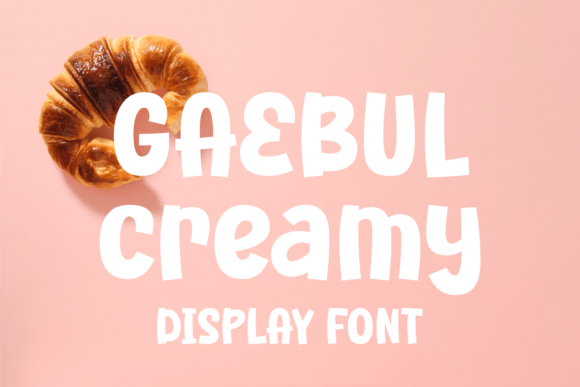
Introducing Gaebul Creamy Font, the ultimate choice for anyone looking to add a touch of boldness, modernity, uniqueness, and fun to their design! Created by the talented KristoperRansz, this font is specifically crafted for children, making it perfect for playful kids' font with a delightful cartoon style.
Are you in search of the best fonts for kids' shirts? Look no further! Gaebul Creamy is the answer to all your creative needs. With its cute and amazing display, this font will undoubtedly make your children's themed designs stand out from the crowd.
Whether you're designing for kindergarten projects, birthday invitations, or comic books, Gaebul Creamy is the ideal font to bring your vision to life. Its fun and chunky style will capture the attention of both kids and adults, guaranteeing a captivating and memorable experience.
But what sets Gaebul Creamy apart from the rest? Its versatility and adaptability make it the perfect choice for a wide range of design projects. From posters and banners to website headers and social media graphics, this font can do it all. It seamlessly blends with any design element, adding a touch of playfulness and creativity.
But it's not just about aesthetics. Gaebul Creamy Font is also packed with emotion, evoking a sense of joy, wonder, and excitement. Imagine the smiles on children's faces as they see their favorite characters come to life through this whimsical font. It's a font that speaks to the heart, creating a connection with your audience that goes beyond words.